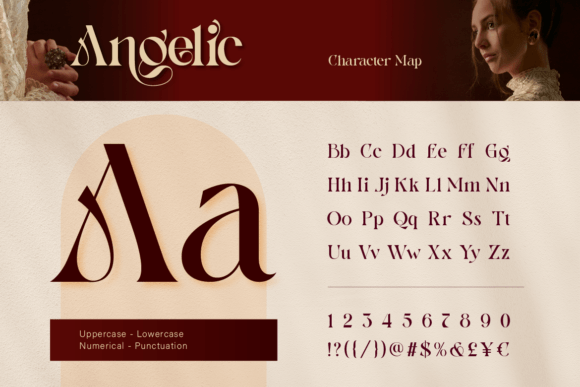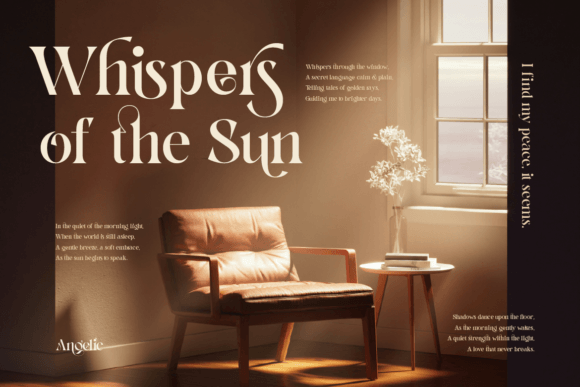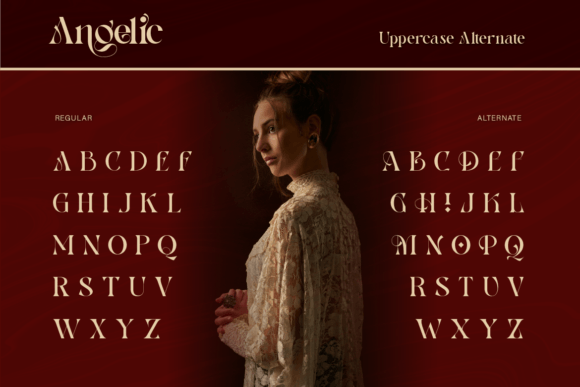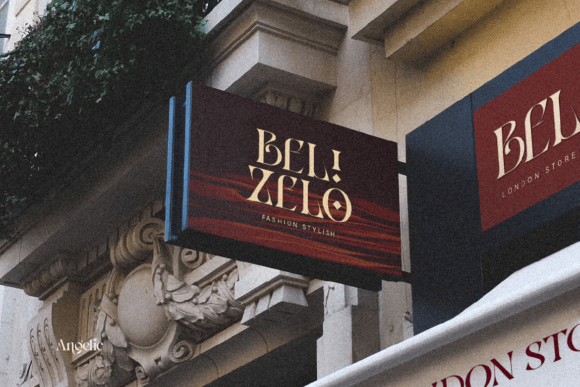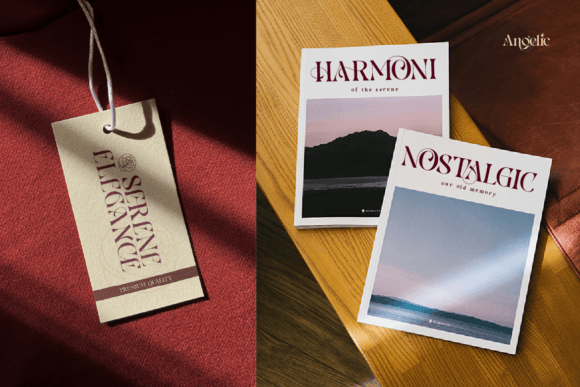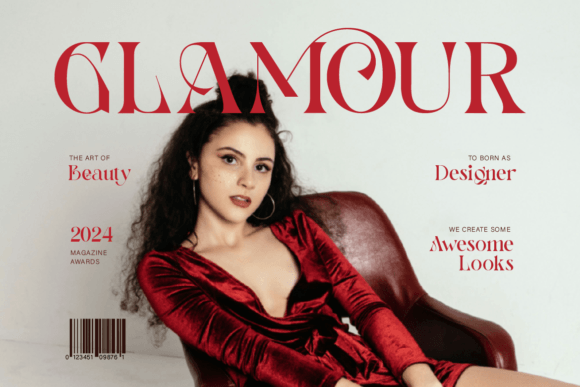
I still remember the frustration of working on a luxury branding project, searching for a font that exuded elegance and sophistication. My client wanted a high-end look, but I was stuck with a sea of bland, generic fonts. That’s when I discovered Angelic, a serif typeface that instantly elevated my design game. In this article, I’ll share my experience with Angelic, its features, and how to make the most of this stunning font.
First Impressions: What I Love About Angelic
Angelic is more than just a font – it’s a design statement. Here are the things that I love about it:
- ✨ Luxurious feel: Angelic’s clean lines and graceful curves create a refined look that’s perfect for high-end branding, fashion magazines, and elegant invitations.
- ✅ Versatility: This font works beautifully in various design contexts, from editorial layouts to packaging design.
- 💫 Modern style: Angelic’s sleek design ensures that your project looks contemporary and on-trend.
While Angelic is an exceptional font, there are a few things to keep in mind:
- 🤔 Limited use in body text: Due to its elegant nature, Angelic might not be the best choice for lengthy body text. It’s better suited for headlines, titles, and short paragraphs.
- ⚠️ Glyph limitations: While Angelic has a range of OpenType features, some users might find the glyph selection limited compared to other fonts.
The Story Behind Angelic
Angelic was designed with the goal of creating a font that embodies luxury, elegance, and modern style. The designer aimed to craft a typeface that would be both refined and sophisticated, making it perfect for high-end branding and editorial design.
| What makes Angelic suitable for luxury branding? | Angelic’s clean lines, elegant curves, and sophisticated look make it perfect for luxury branding projects. |
| Can I use Angelic for body text? | While possible, Angelic is better suited for headlines, titles, and short paragraphs due to its elegant nature. |
| Does Angelic support OpenType features? | Yes, Angelic supports OpenType features, including stylistic alternates and glyphs, which can enhance your design. |
| Is Angelic suitable for digital use? | Absolutely! Angelic’s modern design ensures it looks great in both print and digital formats. |